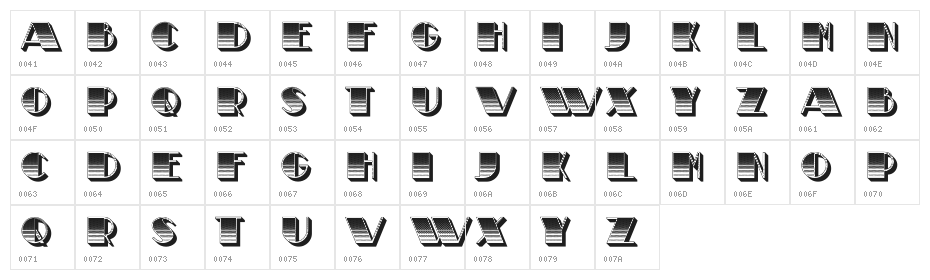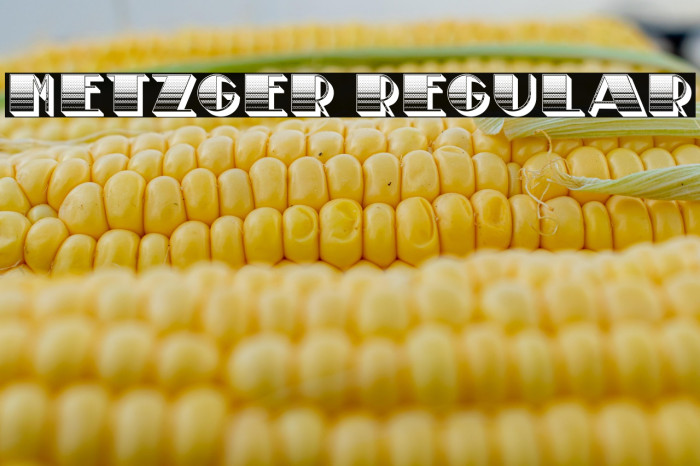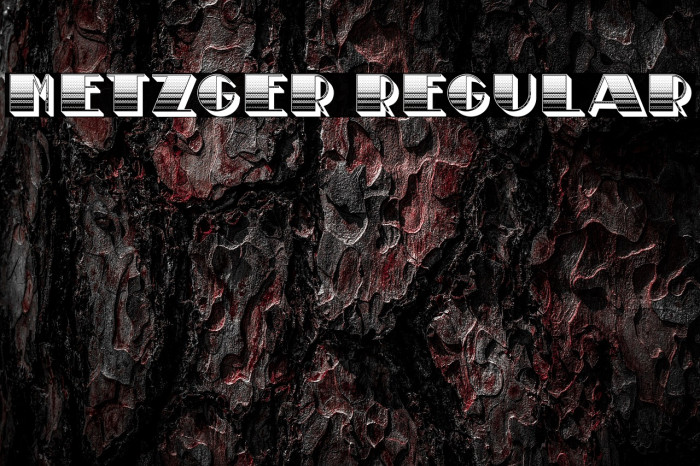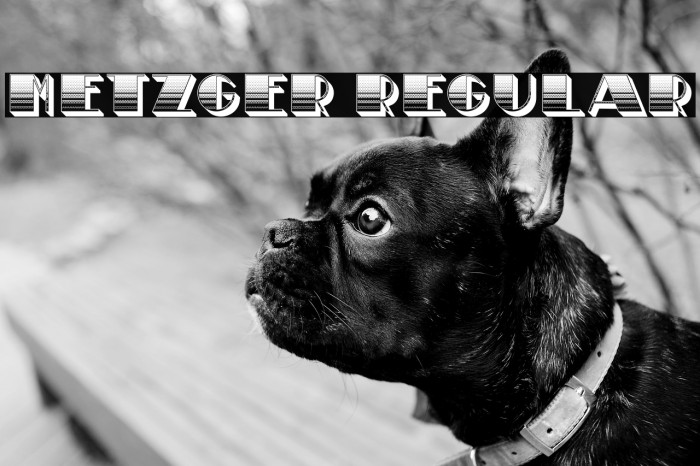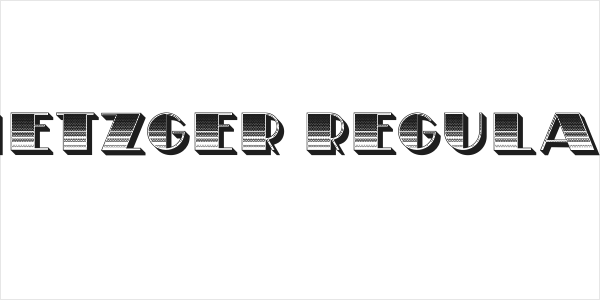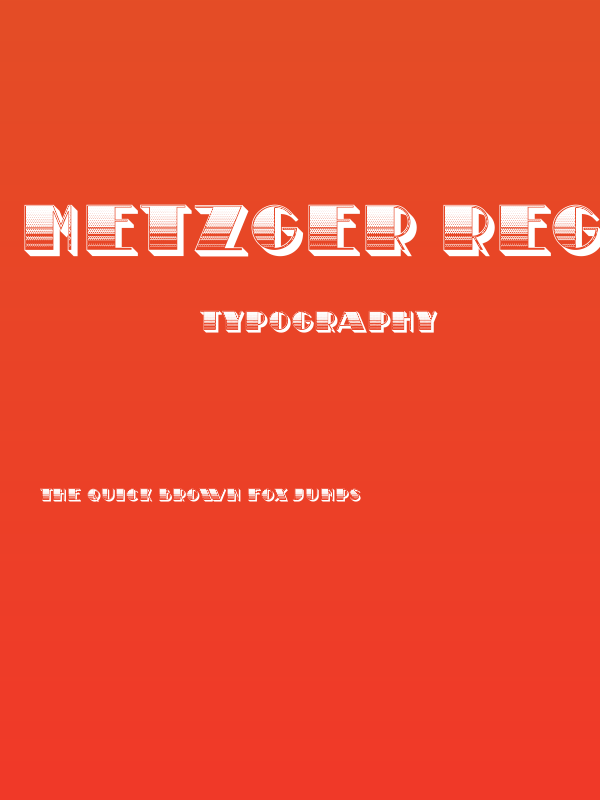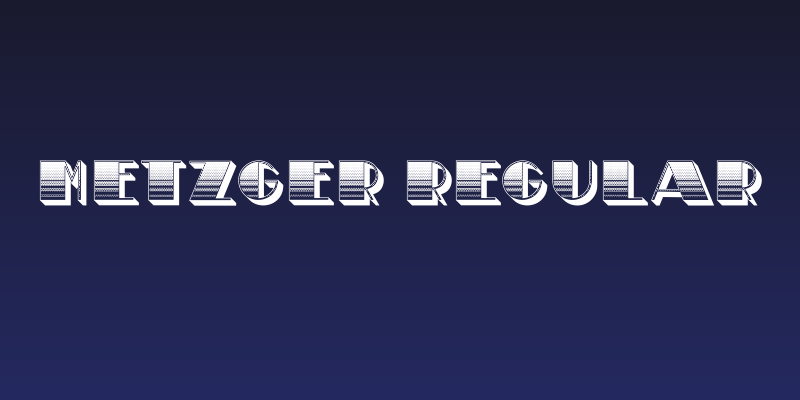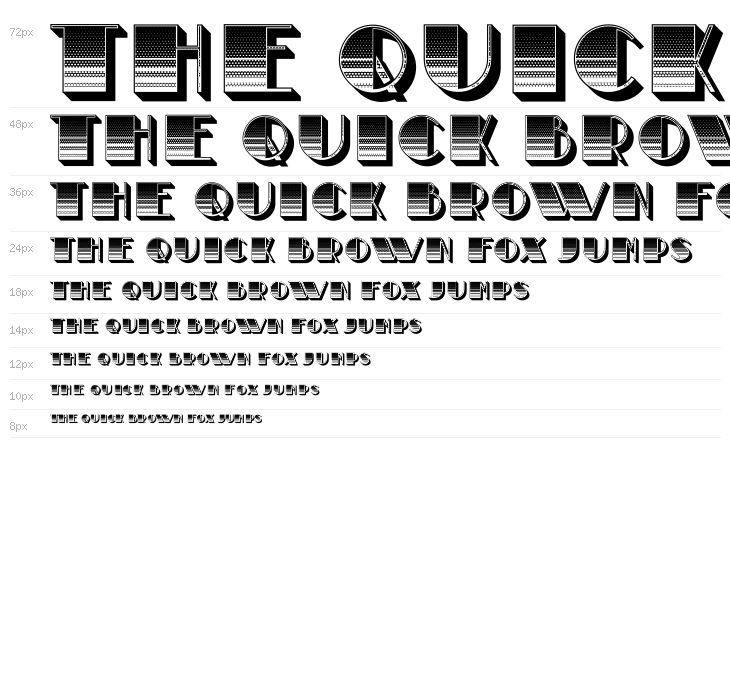
Metzger Regular Font
Metzger Regular Description
This font exhibits a bold and decorative style with a unique 3D effect created by horizontal lines and shading. The uppercase letters are characterized by their thick strokes and shadowed appearance, giving them a sense of depth and dimension. The design is reminiscent of vintage signage, with a modern twist that makes it stand out. The characters are evenly spaced, ensuring readability while maintaining a striking visual impact. This font is ideal for projects that require a bold statement and a touch of nostalgia, such as posters, headlines, and branding materials.
| Overall Style | Vintage |
| Proposed Projects | Ideal for posters, headlines, branding, and any project needing a bold, vintage touch. |